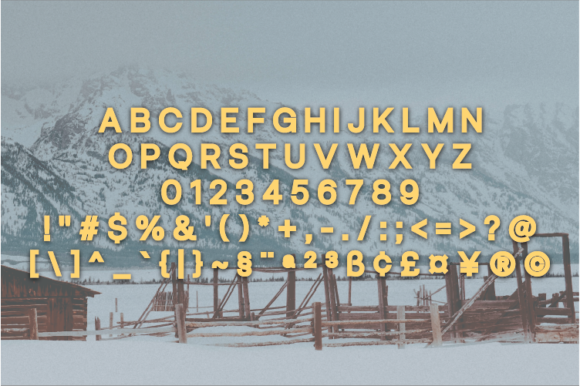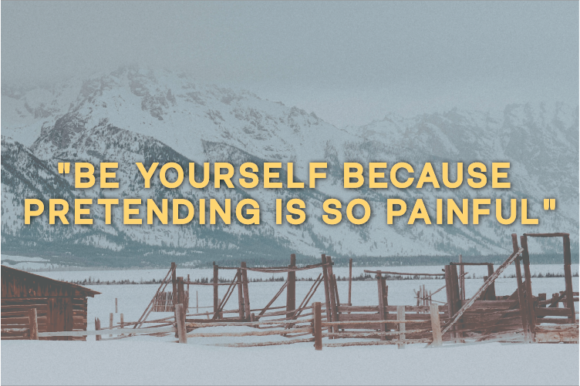
Introduction to Laweno Font
As designers, we’ve all been there – staring at a blank canvas, waiting for inspiration to strike. But sometimes, all it takes is one font to set the tone for an entire project. For me, that font is Laweno Font. Its simplicity and bold lines are the perfect combination to grab attention and make a statement.
Whether you’re working on a logo, branding, or web heading, Laweno Font is a valuable addition to any design resource. With its clean lines and transparent background, it’s the perfect tool for any creative project. Plus, the best part? It’s available for free download, making it a high-quality asset for designers on a budget.
So, what makes Laweno Font so special? Its ability to elevate any design with its modern and sleek aesthetic. And with its free download option, you can add it to your next project with confidence, knowing you’ve got a high-quality design element that’s sure to impress.
Key Features of Laweno Font
- Transparent background, making it suitable for various design applications.
- Includes multiple font styles, with a total of 12 weights and corresponding italics, providing versatility for various design needs.
- Designed to support a wide range of resolutions, from low to high, ensuring optimal display on various devices and screens.
- Supports Latin and Cyrillic languages, making it a valuable resource for multilingual creative projects.
Honest Review: Laweno Font
I recently came across the Laweno Font, and I must say, it’s been a game-changer for my creative projects. As a designer, I’m always on the lookout for high-quality design resources that can elevate my work.
The Laweno Font is a beautifully crafted font that offers a range of styles and weights. I particularly love the elegant and modern feel it brings to my designs. One of the standout features of this font is its versatility – it’s perfect for a wide range of creative projects, from logos to brochures.
- High-quality design: The Laweno Font is meticulously crafted to provide a professional and polished look.
- Limited customization options: While the font itself is excellent, I found the customization options to be somewhat limited.
- No transparent background option: This might be a drawback for designers who frequently use transparent backgrounds in their designs.
Overall, I’m thoroughly impressed with the Laweno Font. Its high-quality design, ease of use, and free download make it an excellent addition to any designer’s toolkit. While it may have some limitations, I believe it’s an excellent resource for any creative project.
The Laweno Font is commonly used in:
1. Branding and marketing materials.
2. Digital graphics and infographics.
3. Print materials such as business cards and brochures.